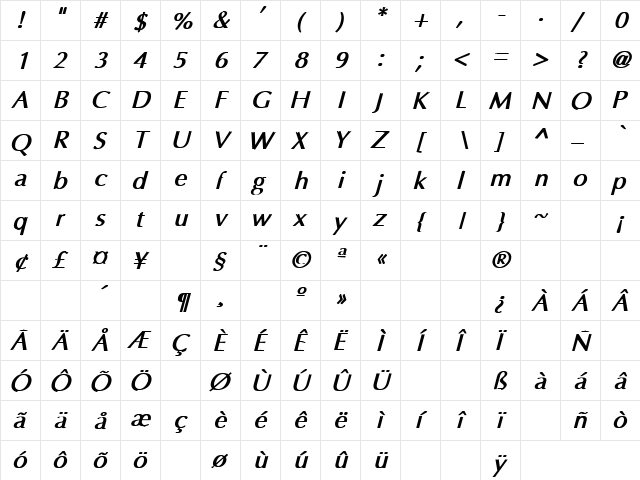
Friends 13 Bold Italic Font Preview
Friends 13 Bold Italic
Design Context for Friends 13 Typeface
Friends 13 takes a measured approach to typography — its balanced proportions and neutral character make it a reliable workhorse for both digital and print work. Its italic angle brings a sense of urgency and motion to the letterforms. The heavy weight commands attention and anchors typographic hierarchies.